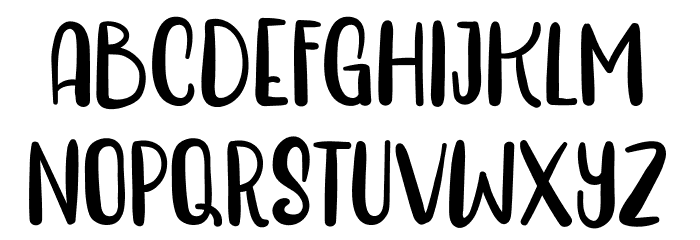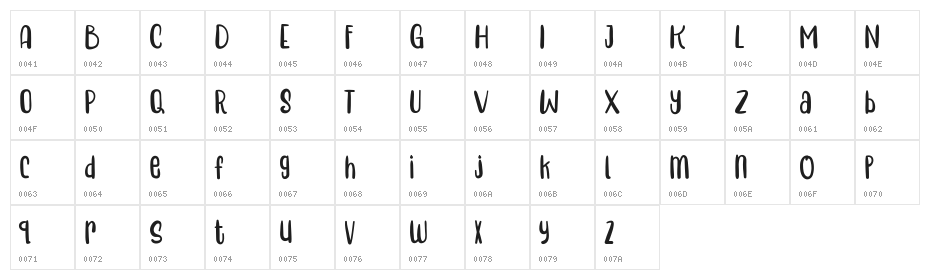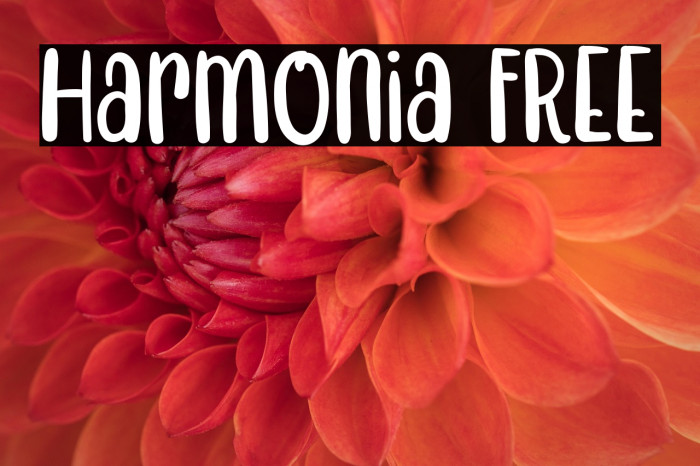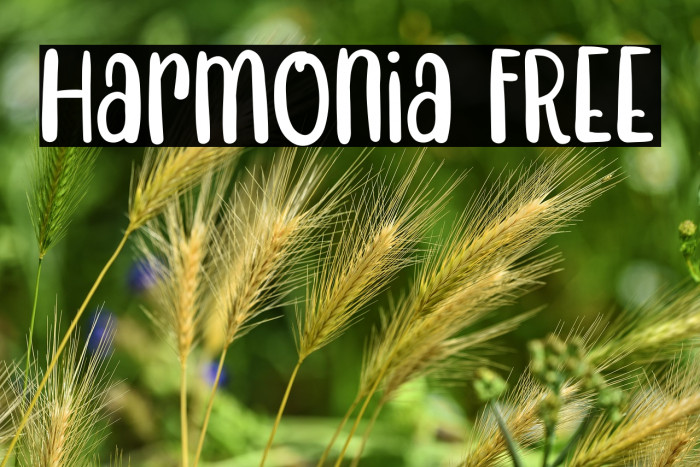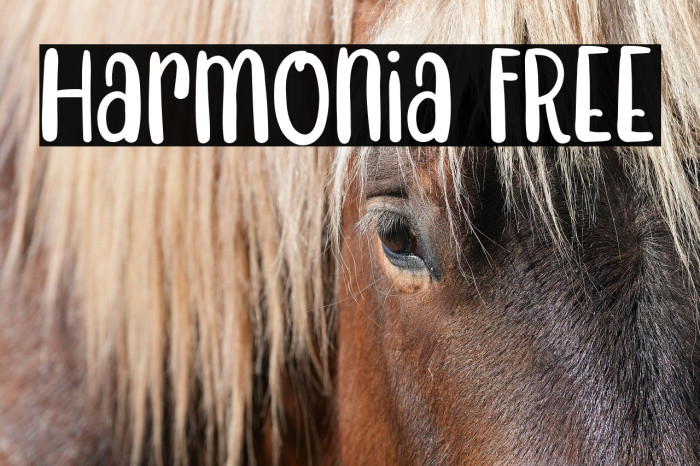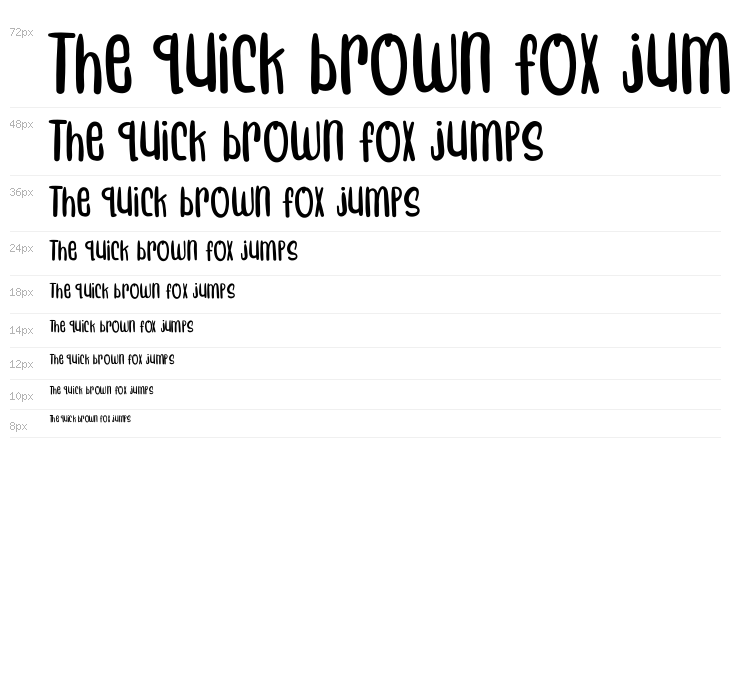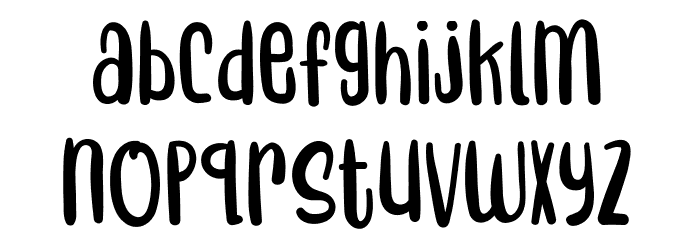
Harmonia FREE Font
Harmonia FREE Description
This font features a playful and rounded style with a hand-drawn appearance. The characters are bold and have a consistent stroke width, giving them a uniform look. The letters are slightly condensed, which adds to the whimsical and friendly feel of the typeface. The uppercase and lowercase letters maintain a cohesive style, with smooth curves and a casual aesthetic. This font is well-suited for projects that require a fun and approachable tone, such as children's books, playful branding, or creative invitations. The overall design is modern yet retains a touch of vintage charm, making it versatile for various applications.
BoldYes
ItalicNo
WidthCondensed
Character SpacingMonospaced
ContrastLow
Overall StylePlayful, Modern, Vintage
Use CaseHeadlines, Logos, Invitations
Proposed ProjectsIdeal for children's books, playful branding, creative invitations, and casual designs.